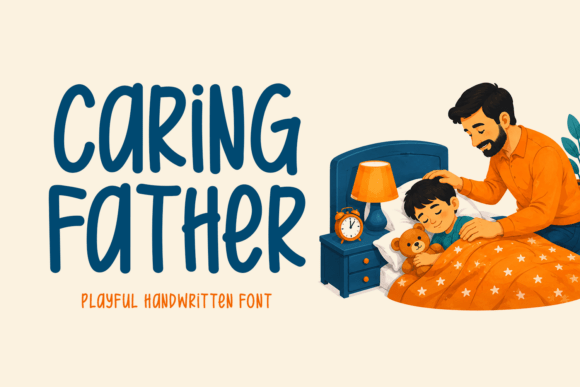
The Perfect Font for Heartfelt Moments
As a designer, have you ever been tasked with creating a project that requires a touch of warmth and love? Perhaps it’s a birthday card for a child, a nursery decor design, or a social media post celebrating a family milestone. I’m sure you’ve experienced that moment of frustration when trying to find the perfect font to convey the emotions you’re trying to convey.
Enter the Caring Father Font, a beautiful and heartfelt handwritten font that’s designed to capture the love and comfort we feel when surrounded by family. This font is perfect for designers who want to add a soft, friendly, and loving touch to their projects. With its smooth curves and playful personality, Caring Father Font is a valuable addition to any designer’s toolkit.
With the Caring Father Font, you’ll be able to create designs that truly speak from the heart, making it a must-have for any designer looking to add a little extra love to their work.
Caring Father Font Key Features
- Font Family: Caring Father Font is a unique, hand-drawn font designed to evoke feelings of warmth and care.
- Character Count: The font contains a large character set, including uppercase and lowercase letters, numbers, and punctuation marks.
- Unique Characteristics: The Caring Father Font features a distinctive, handwritten style with subtle imperfections, giving it a personal and emotive touch.
Caring Father Font Review
At first glance, I thought the Caring Father Font was going to be a generic, sentimental font. But, I was pleasantly surprised. Here’s what works well:
- ✨ Friendly and approachable feel – it’s perfect for designs that require a personal touch.
- ✨ Great for family-related projects, like greeting cards or parenting blogs.
- ✨ The font is highly legible, even at smaller sizes.
However, there are some limitations:
- ⚠️ Limited character set – it’s not ideal for complex, long-form content.
- ⚠️ Not as versatile as other fonts – it’s best suited for specific, sentimental designs.
- ⚠️ May not be suitable for formal or professional projects.
Overall, I think the Caring Father Font is a solid choice for designers looking to add a personal touch to their projects. While it’s not a one-size-fits-all solution, it’s perfect for specific, sentimental designs. Just be aware of its limitations and use it accordingly.
Tips for Getting the Most Out of the Caring Father Font
Use the Caring Father Font to create heartwarming messages for your loved ones. It’s perfect for:
- Father’s Day cards and gifts.
- Family photo albums and scrapbooks.
- Personalized invitations and event decorations.
The Caring Father Font is ideal for:
- Creating emotional and sentimental designs.
- Expressing gratitude and appreciation.
- Adding
Alternatives to Caring Father Font
Great Vibes is a modern script font that is perfect for creating a friendly and approachable atmosphere. It is ideal for use in branding, advertising, and packaging designs. Great Vibes is a more stylized and dynamic alternative to Caring Father Font, making it suitable for designs that require a bolder and more expressive tone.
Alex Brush is a elegant and sophisticated script font that is ideal for use in high-end branding, luxury packaging, and editorial designs. It has a more refined and polished feel compared to Caring Father Font, making it suitable for designs that require a sense of luxury and sophistication.
Carolyna Pro is a versatile and elegant script font that is perfect for use in modern branding, advertising, and packaging designs. It has a more refined and modern feel compared to Caring Father Font, making it suitable for designs that require a sense of sophistication and elegance.